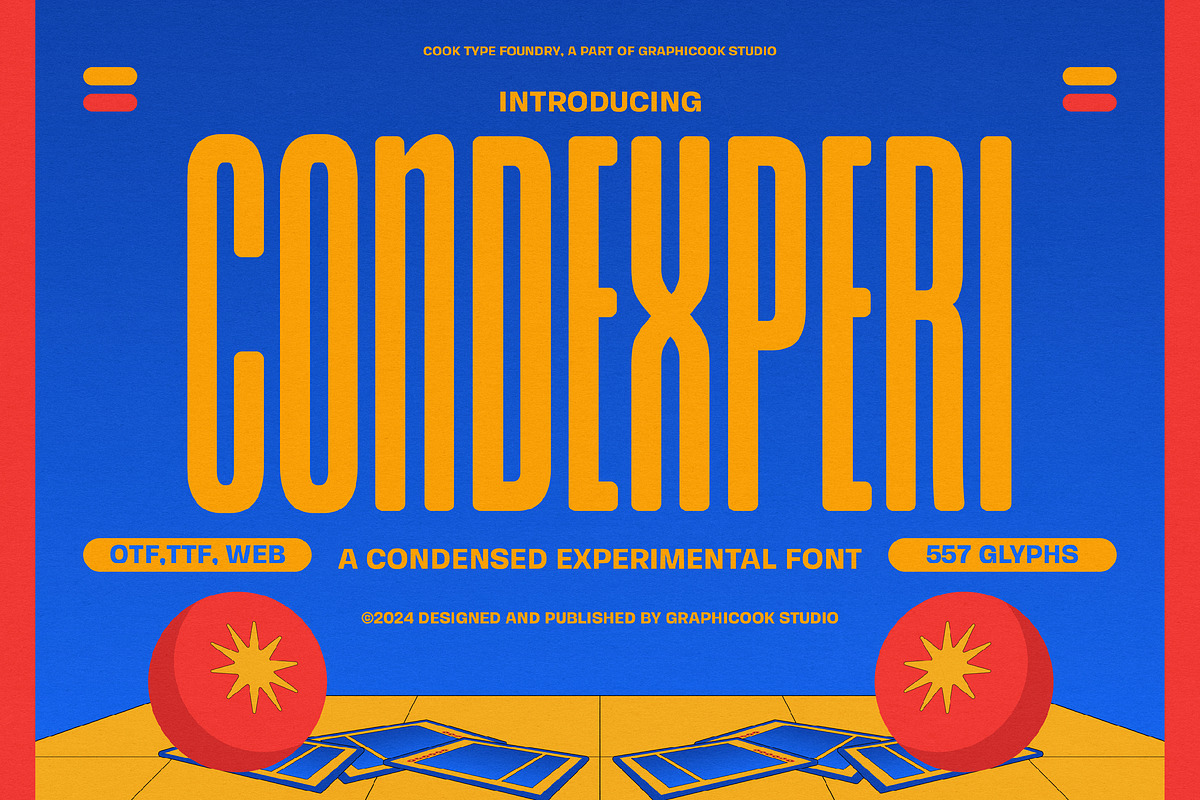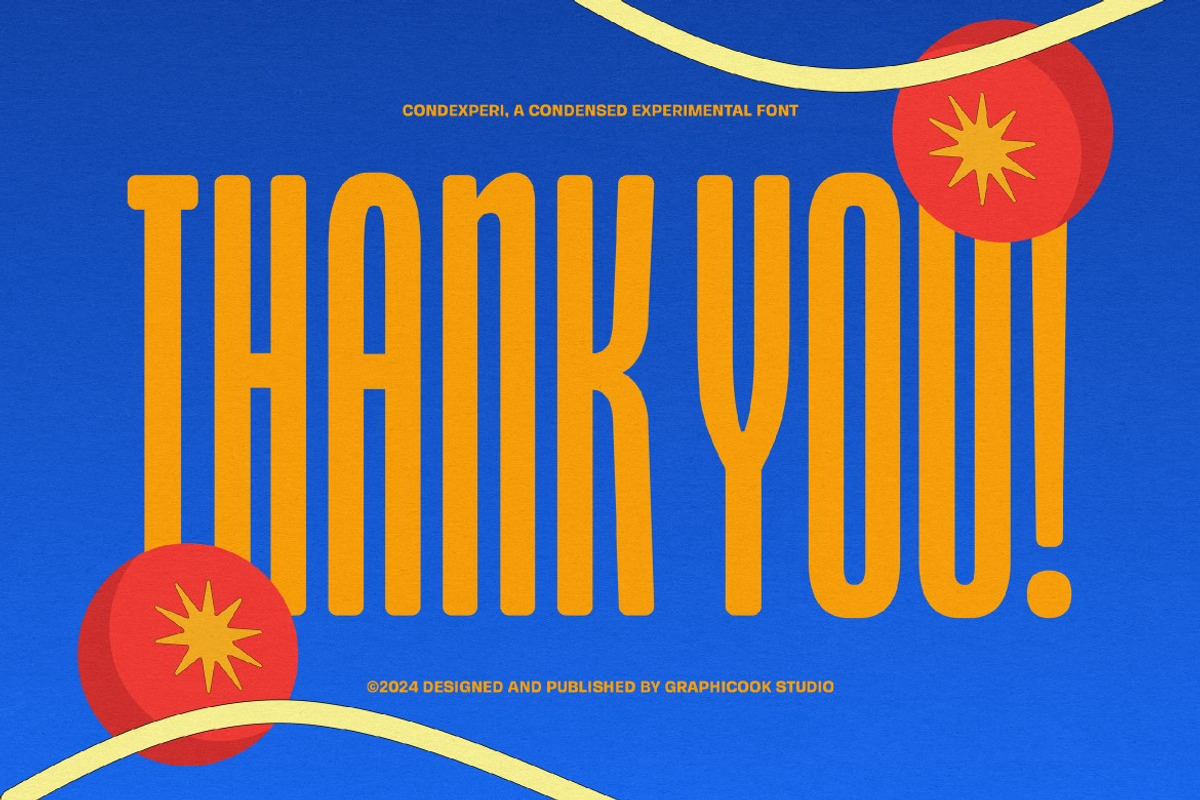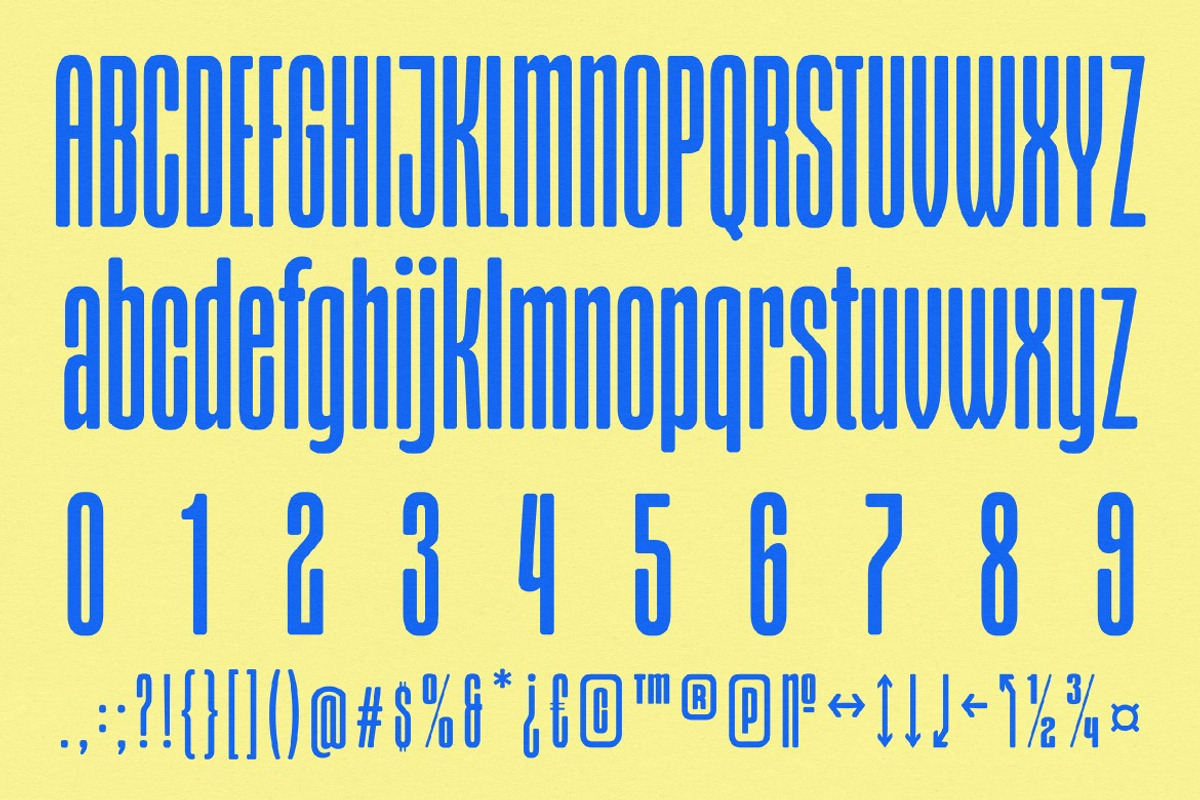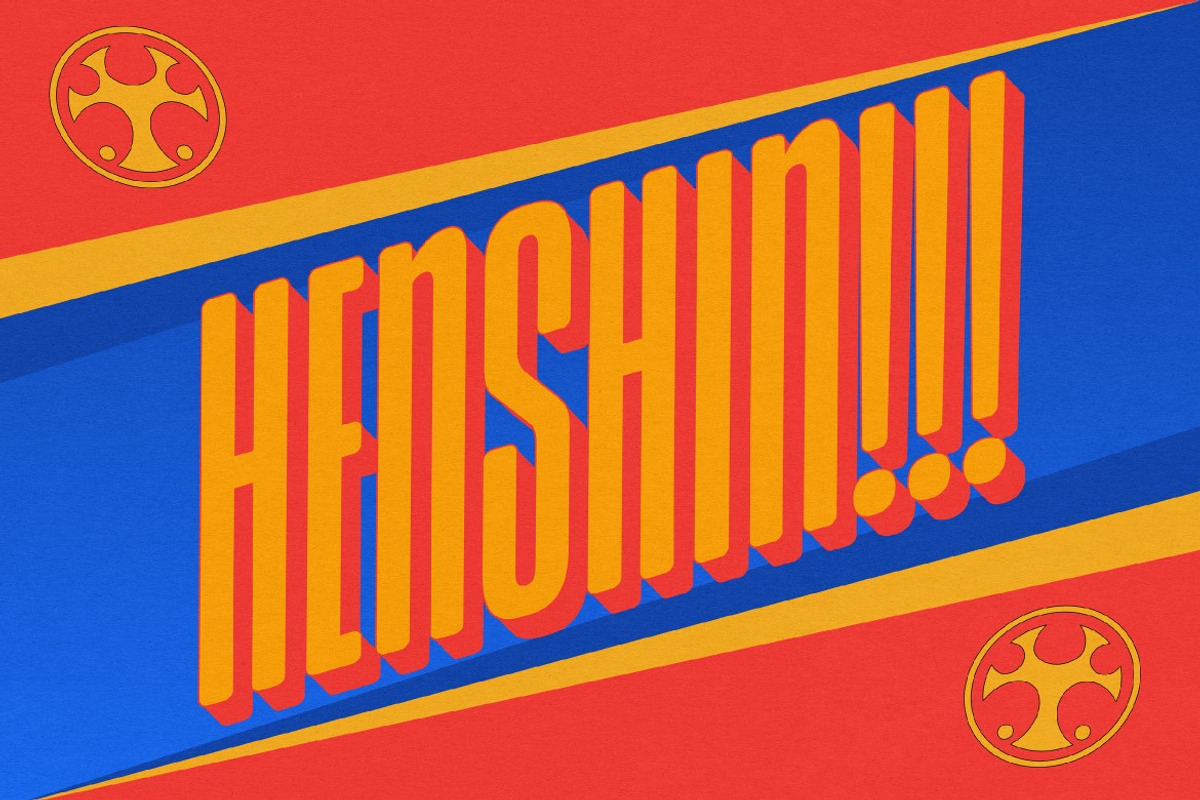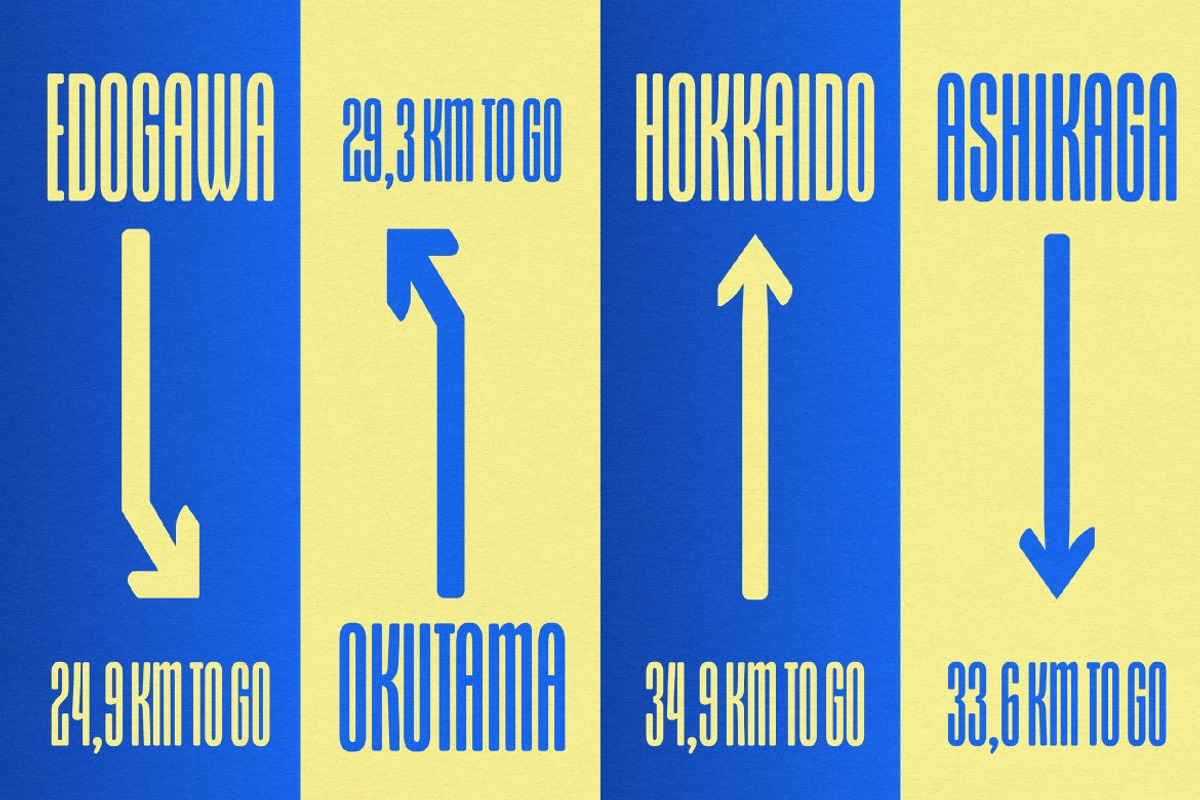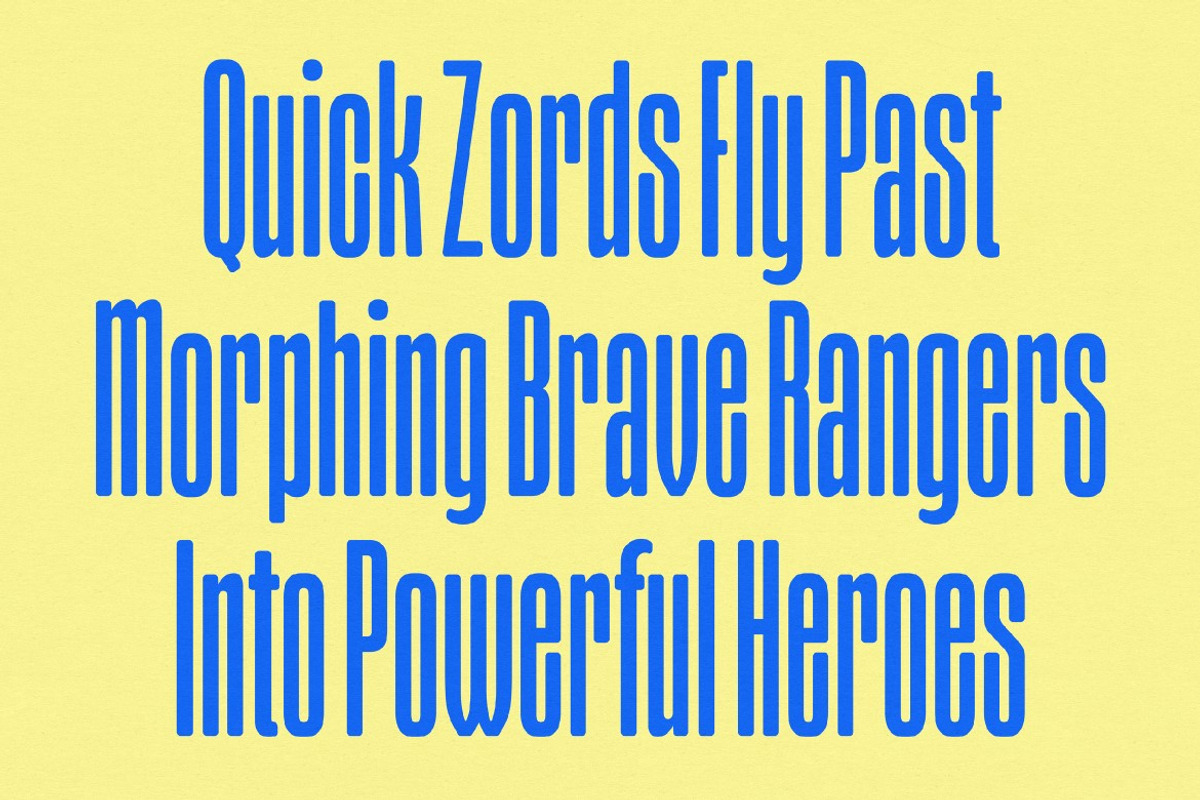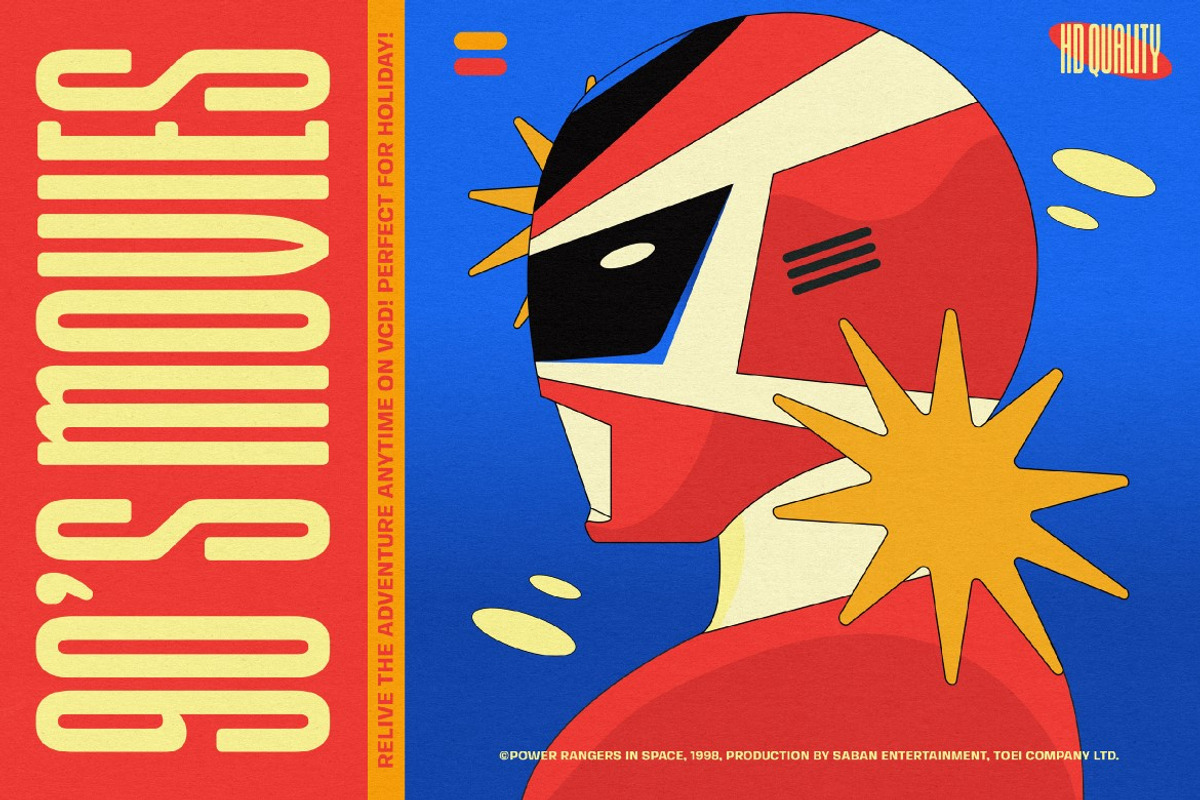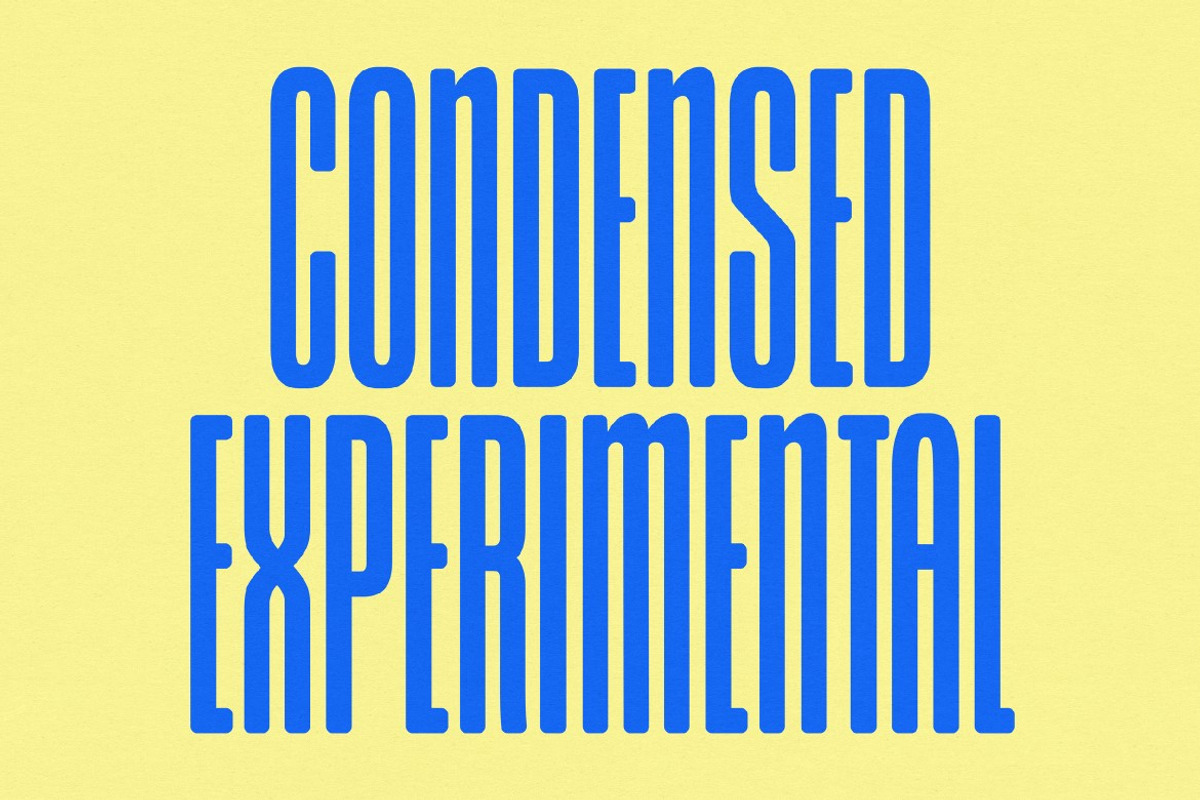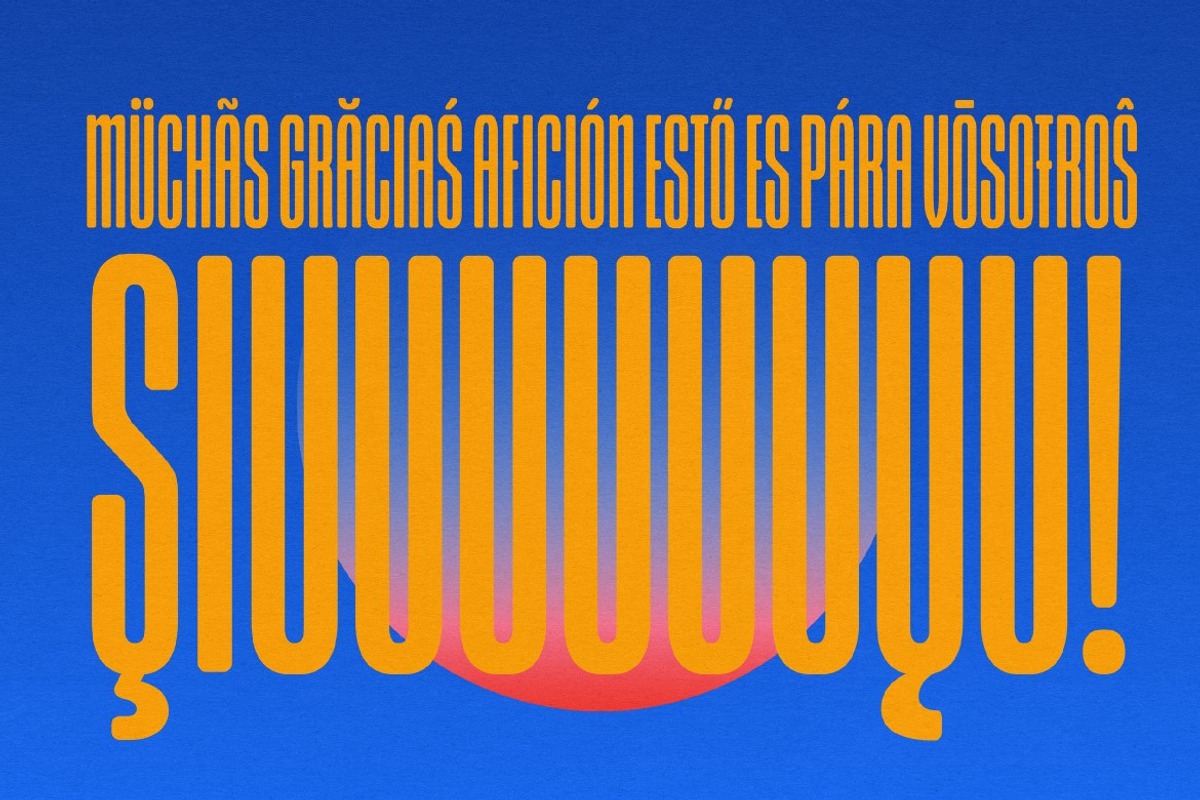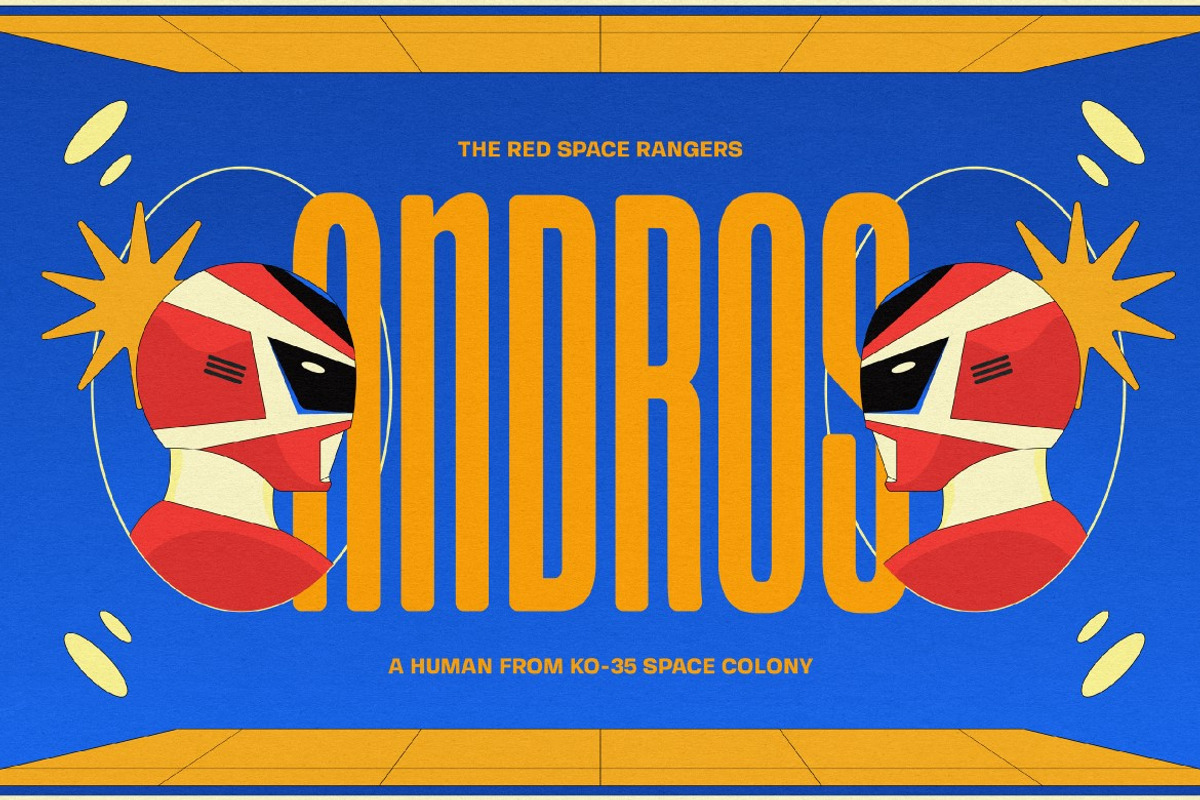
Condexperi
Condexperi is a condensed experimental font with a fun, playful vibe. Ideal for a wide range of design projects.
Condexperi is perfect for headlines, logotypes, magazines, packaging, quotes, movies, games, cover albums, book covers, and flyers, it's a perfect solution for creating eye-catching designs that stand out in any context.